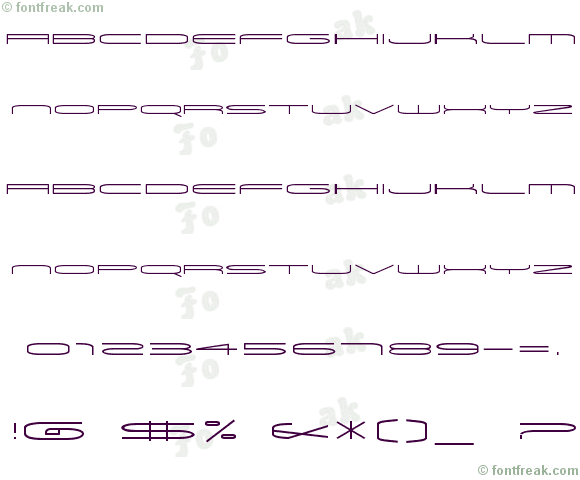
Univox Atom Light
Univox Atom Light — Character Map
About Univox
Univox, designed by Ray Larabie in 1996, is a striking display font that embodies a modern aesthetic with its unique, geometric style. As a freeware typeface, it invites both personal and commercial use, allowing users to distribute it freely. Characterized by a sleek, rounded structure, the Univox font features a consistent stroke weight that is visually appealing and easy to read. The typeface boasts minimal contrast, emphasizing its contemporary vibe while maintaining clarity. The spacing between characters is well-balanced, ensuring legibility even at larger sizes, making it an excellent choice for various design applications.
This font shines in contexts such as movie posters, where its bold, eye-catching design can draw attention and convey a sense of excitement. It is also well-suited for restaurant menus, helping to create a modern and inviting atmosphere that appeals to diners. Additionally, Univox is perfect for branding projects, giving a unique identity to small businesses looking to stand out. Graphic designers and content creators will find it particularly useful for creating social media graphics, where a distinctive font can enhance visual storytelling.